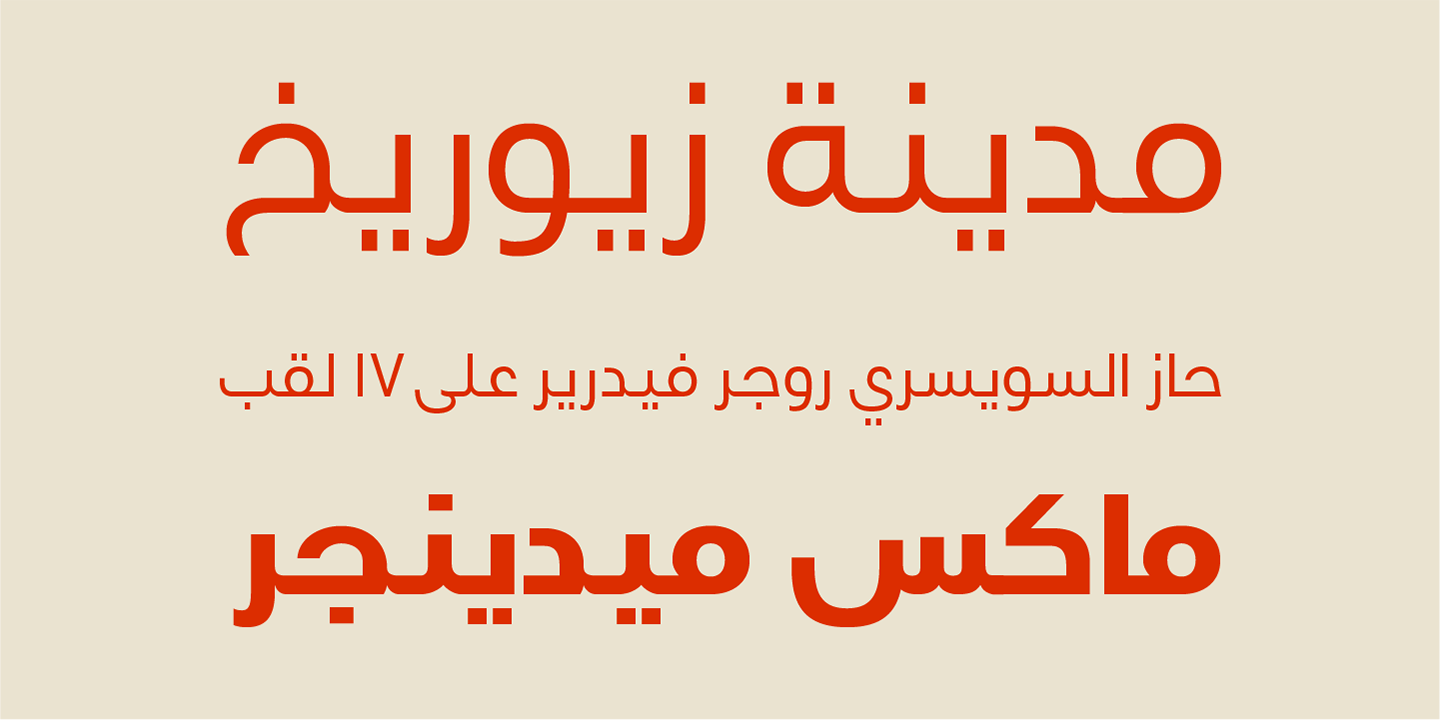
Swissra Font is ideal for web design, print media, logos, branding, and UI/UX projects. Its clean, neutral design excels in multilingual settings, including Arabic and Urdu typography, for advertisements, banners, and editorial layouts.
Why is Swissra Font exciting? Its Swiss-inspired, minimalist aesthetic with sharp terminals and high x-height offers a modern, versatile look, blending precision with cultural elegance.
The Swissra Font family includes eight weights—Thin, UltraLight, Light, Normal, Medium, Bold, Heavy, and Black—plus condensed variants, providing extensive creative flexibility.